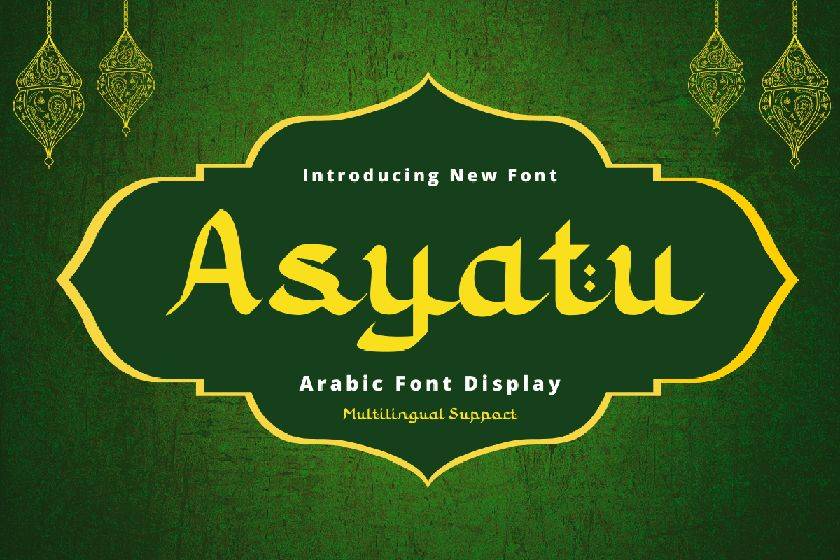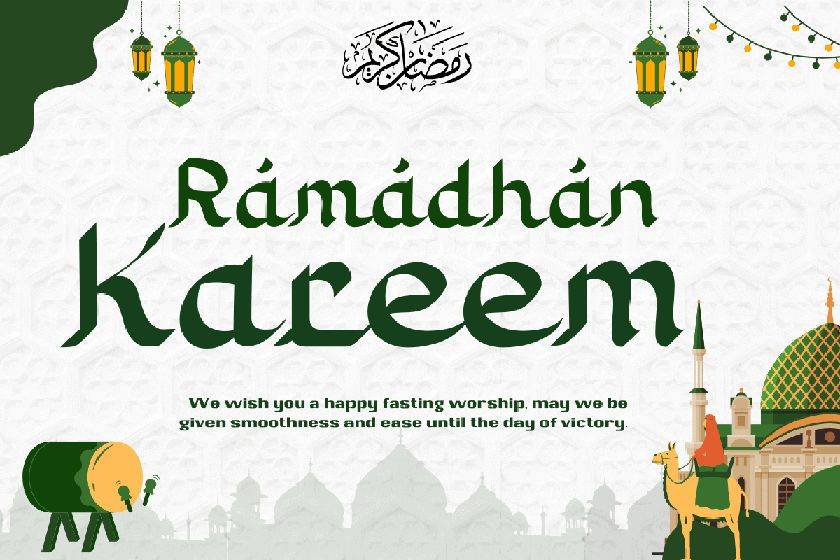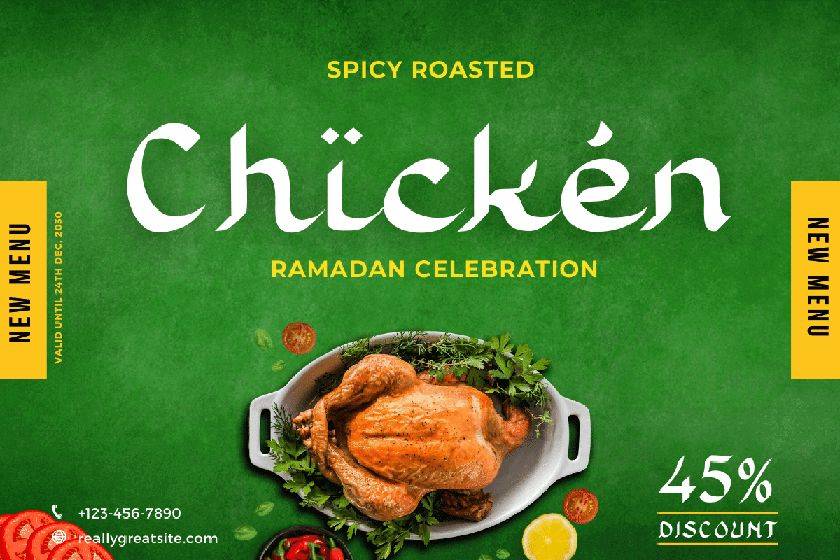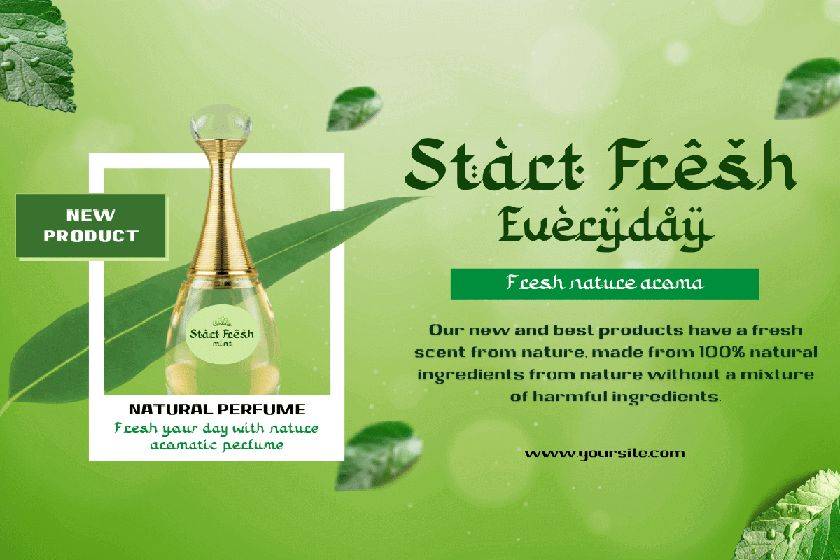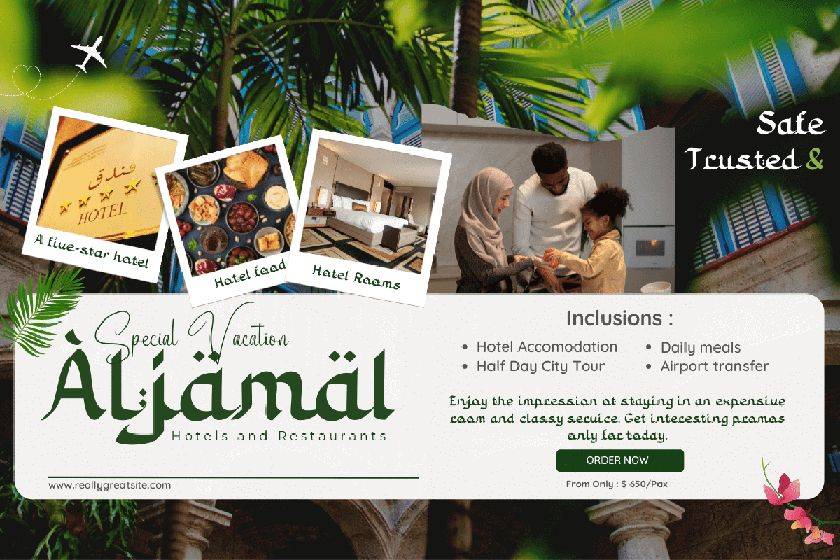
Asyatu is a distinctive serif font with a strong calligraphic influence, featuring bold, sharp strokes and medium contrast that create a dynamic, slightly gothic feel. Its unique letterforms, including pointed serifs and stylized curves, convey a mysterious and artistic personality, making it ideal for headlines, branding, and creative projects seeking a dramatic and elegant touch. This font works best in display settings where its intricate details can be appreciated, adding character and flair to fashion, editorial, or vintage-inspired designs.
Asyatu Font
About Asyatu Font